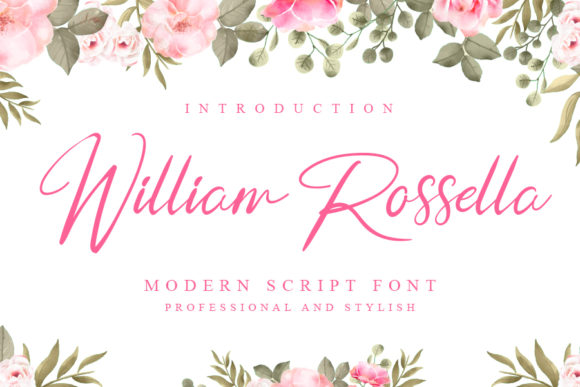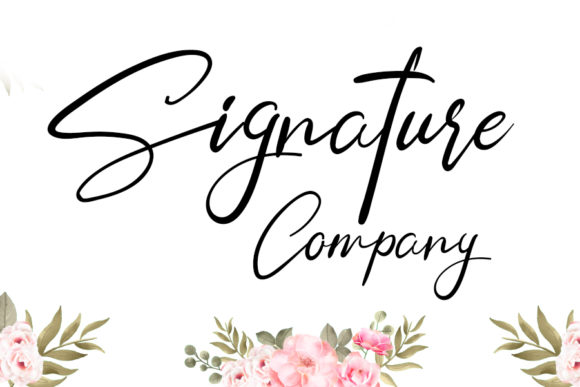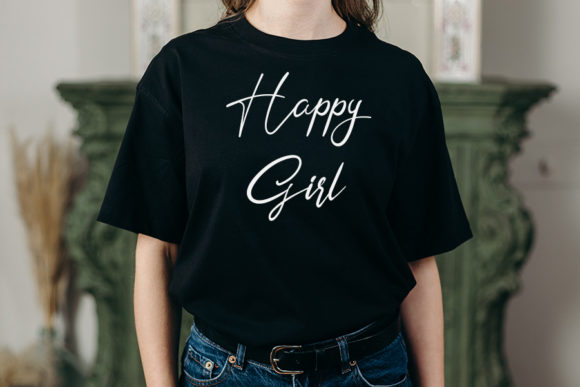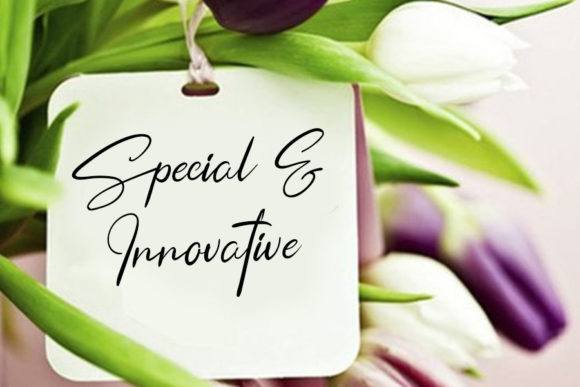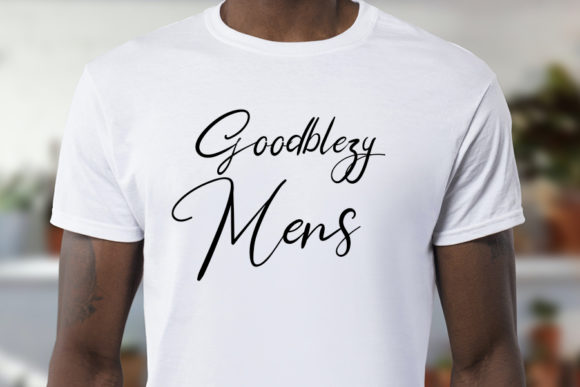
William Rossella Font
About William Rossella Font
William Rossella is a sweet and delicate script font. It has elegant and trendy characters and is suitable for any branding, product packaging, invitation, quote, t-shirt, label, poster or logo.